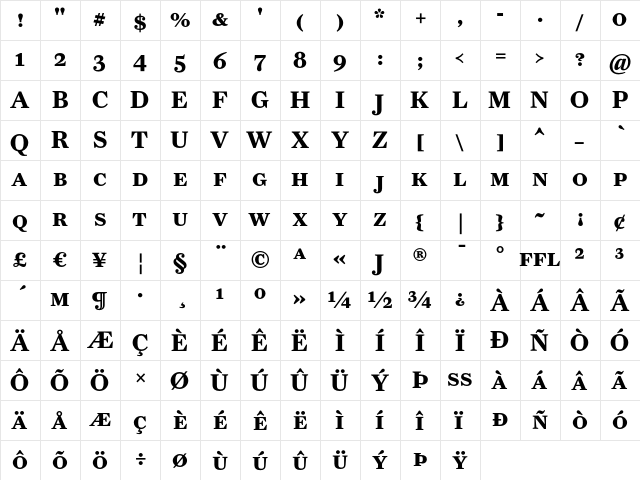
FarnhamDisplay-BoldSC Regular
Design Context for FarnhamDisplay-BoldSC Typeface
FarnhamDisplay-BoldSC brings ornamental detail and strong personality to headlines and identities, where visual impact matters more than quiet functionality. Its bold stroke weight gives it real presence on the page.
Font Pairing: Pair with a clean neutral sans-serif for body copy to let FarnhamDisplay-BoldSC's character lead without overwhelming the composition.
Pro Tip: Use FarnhamDisplay-BoldSC exclusively at display sizes — it was designed to be seen, not read at length. Let a neutral companion handle body copy.